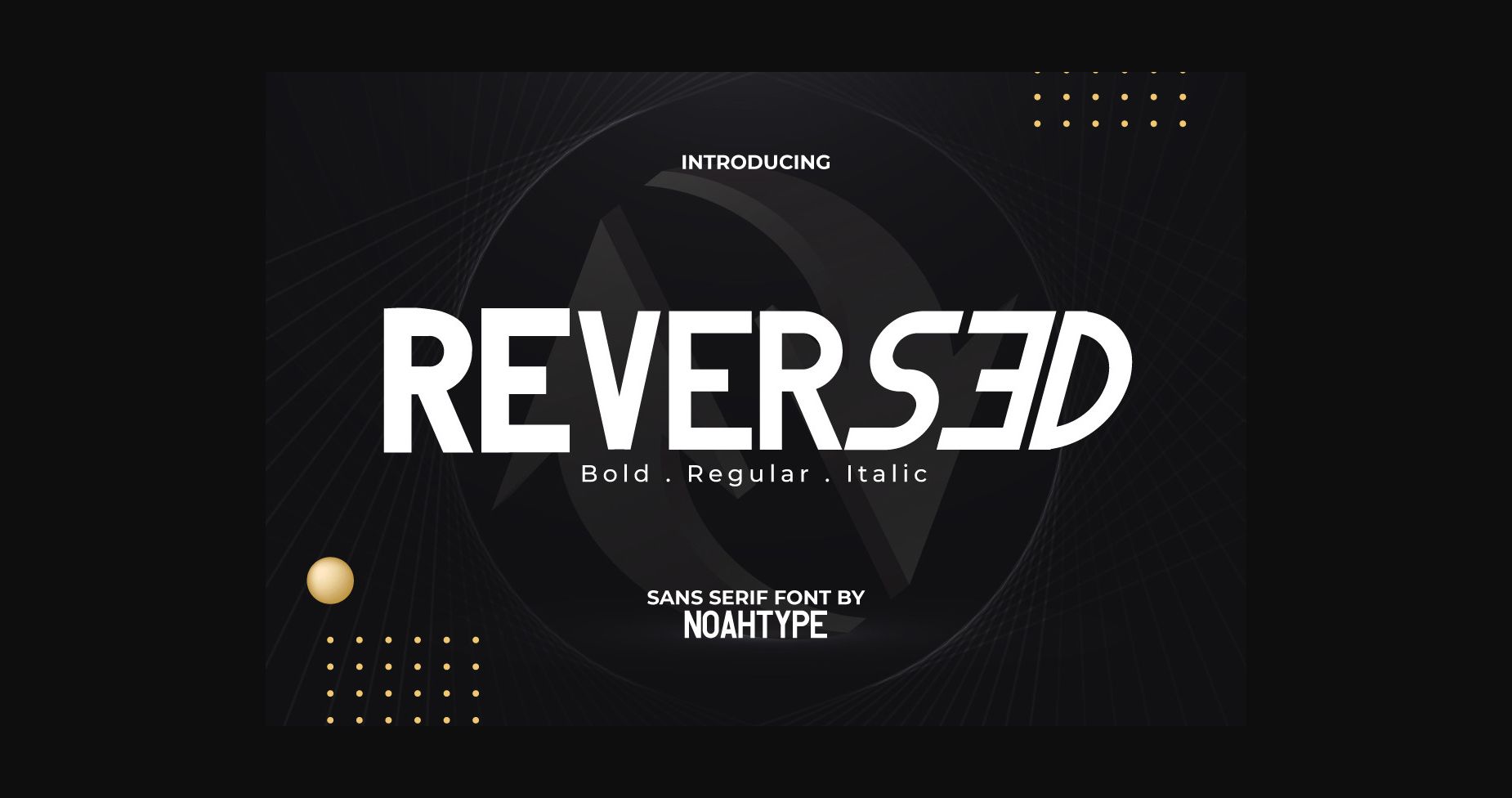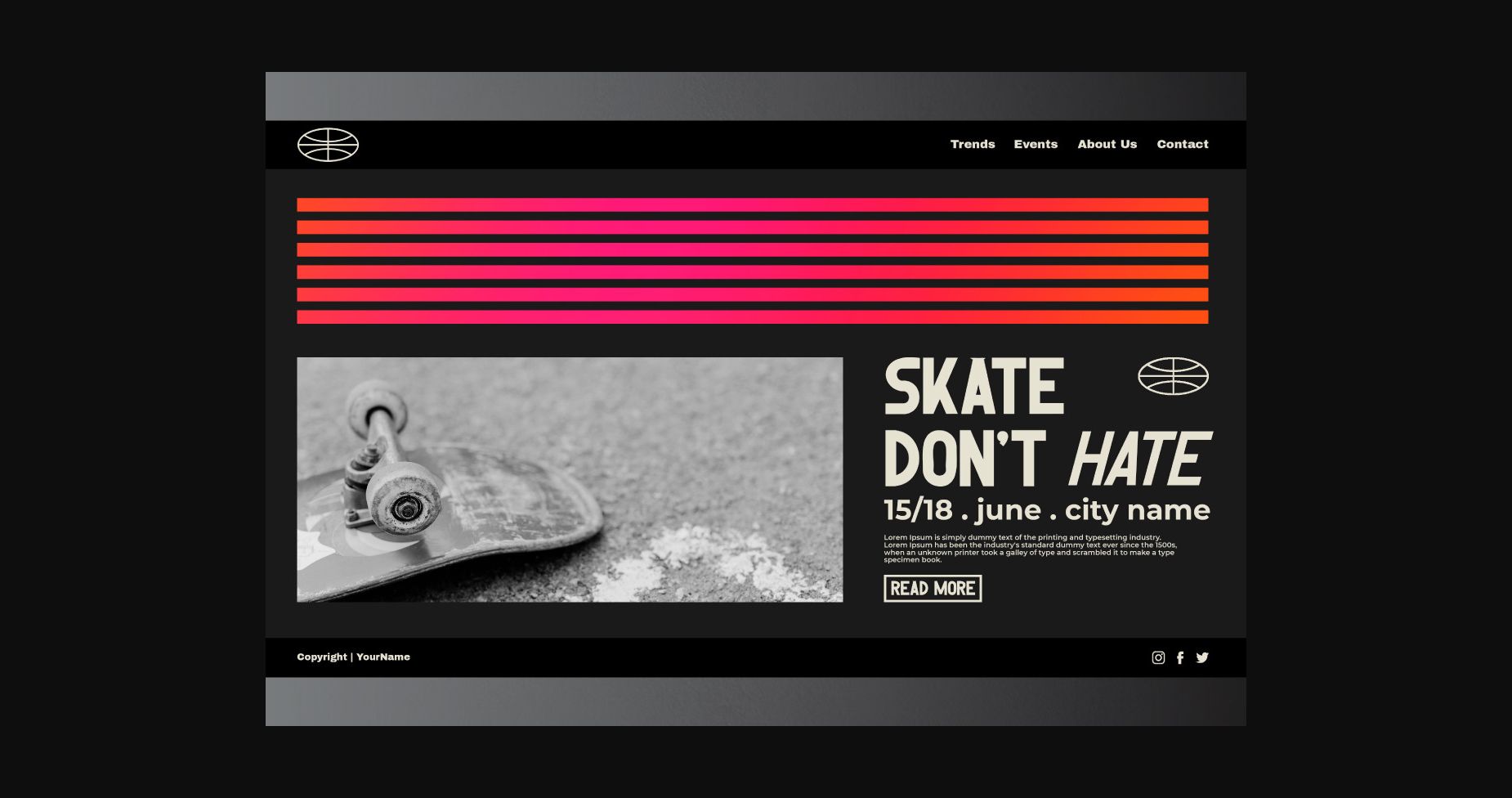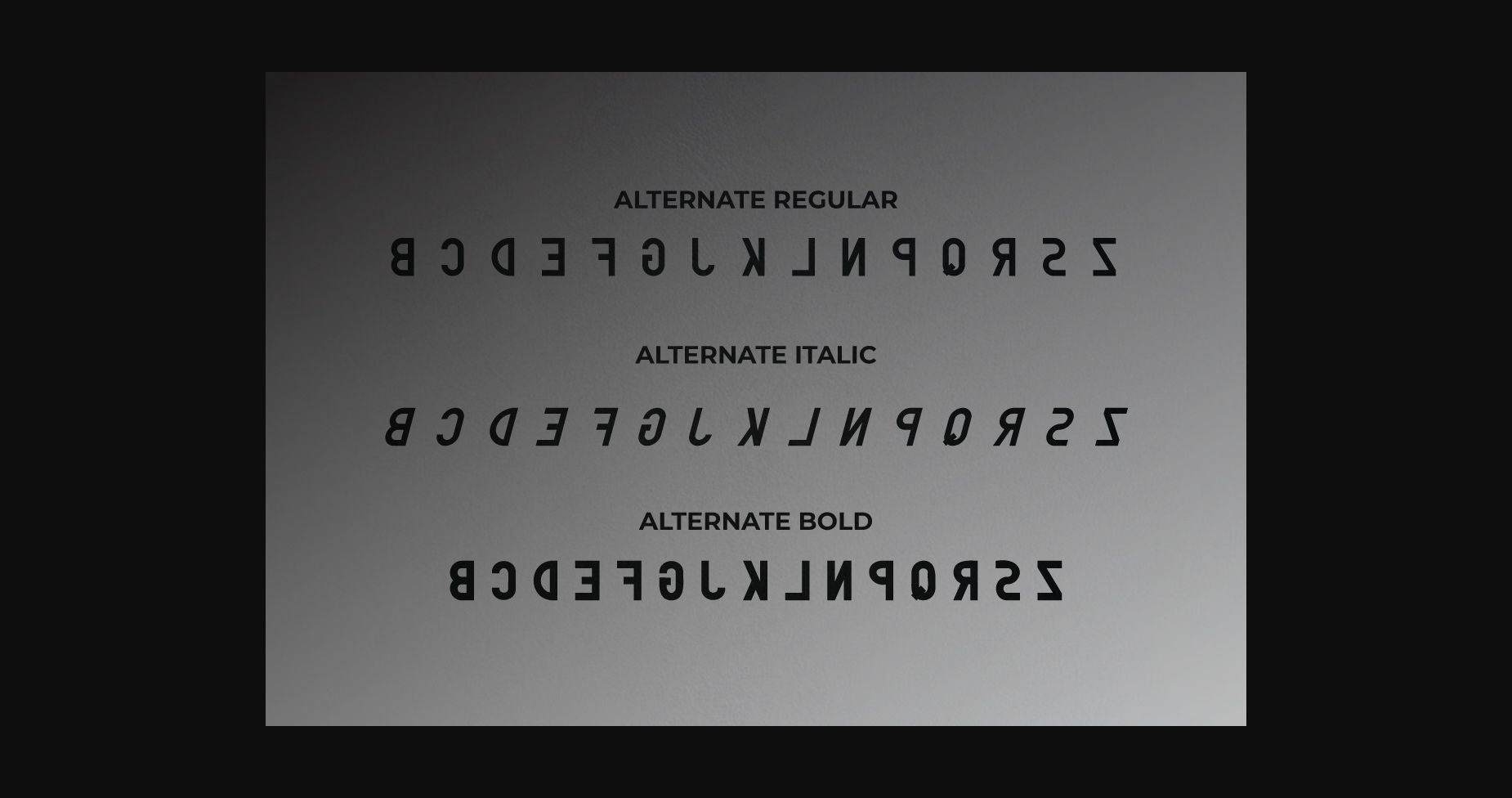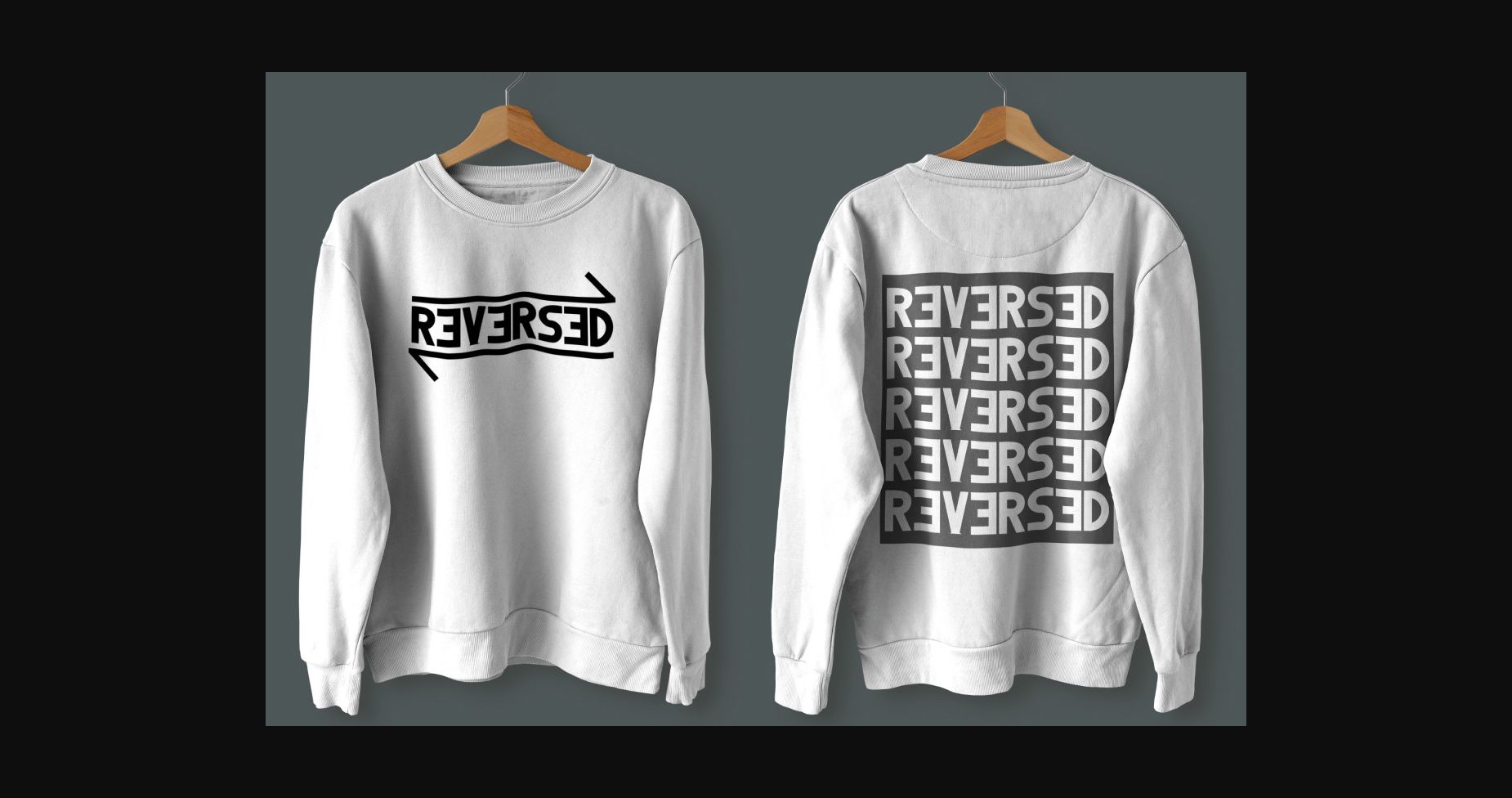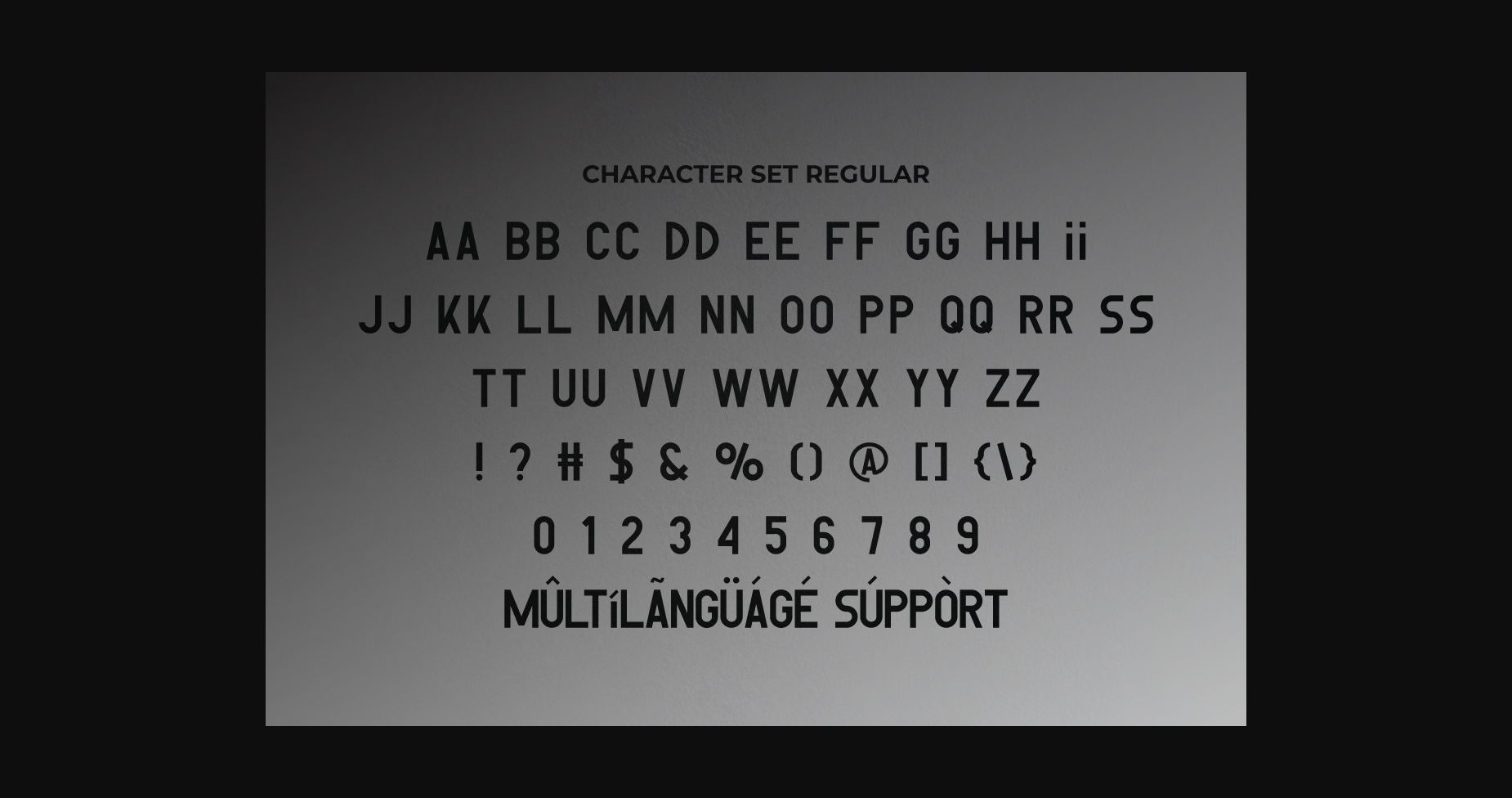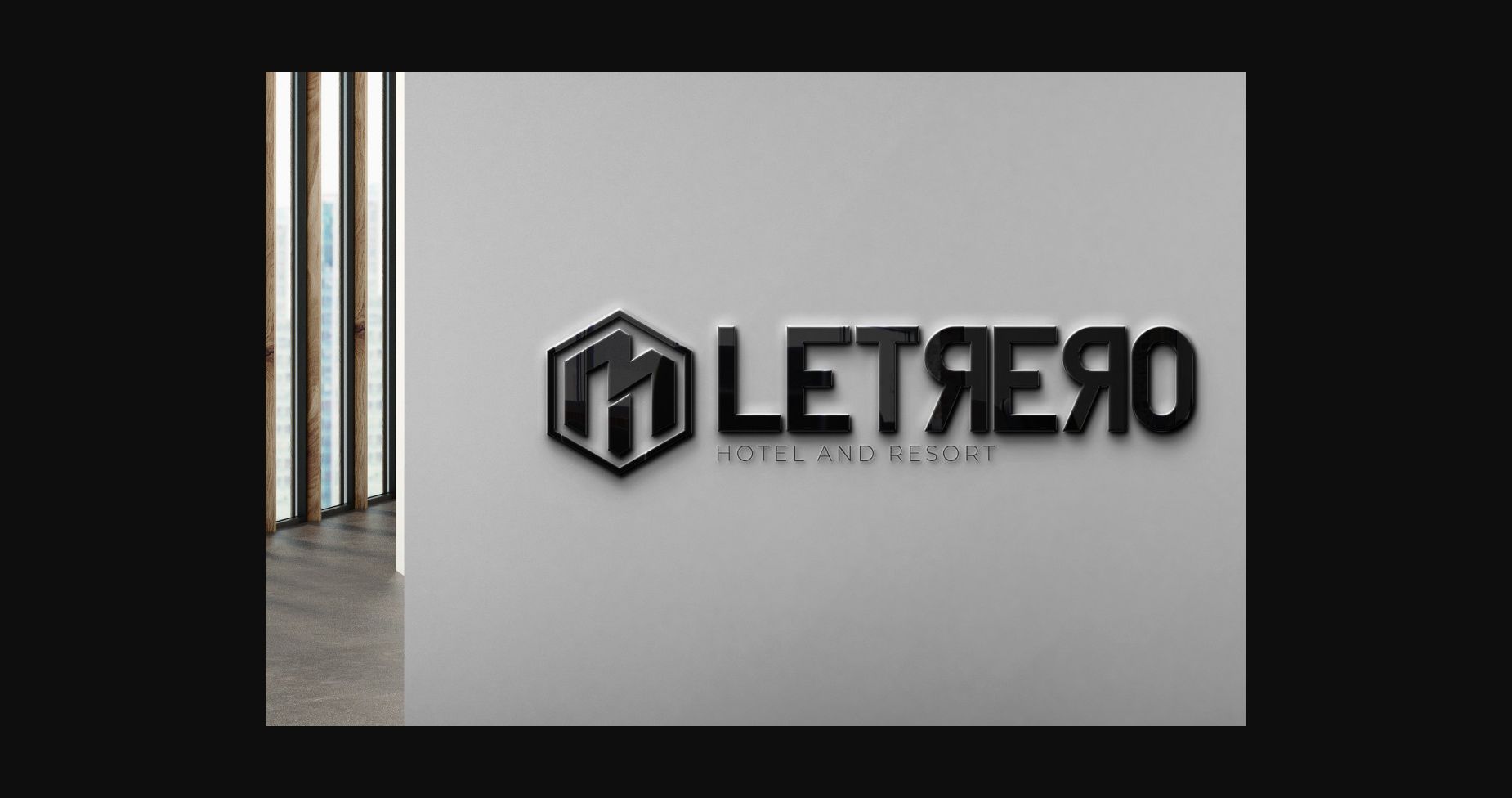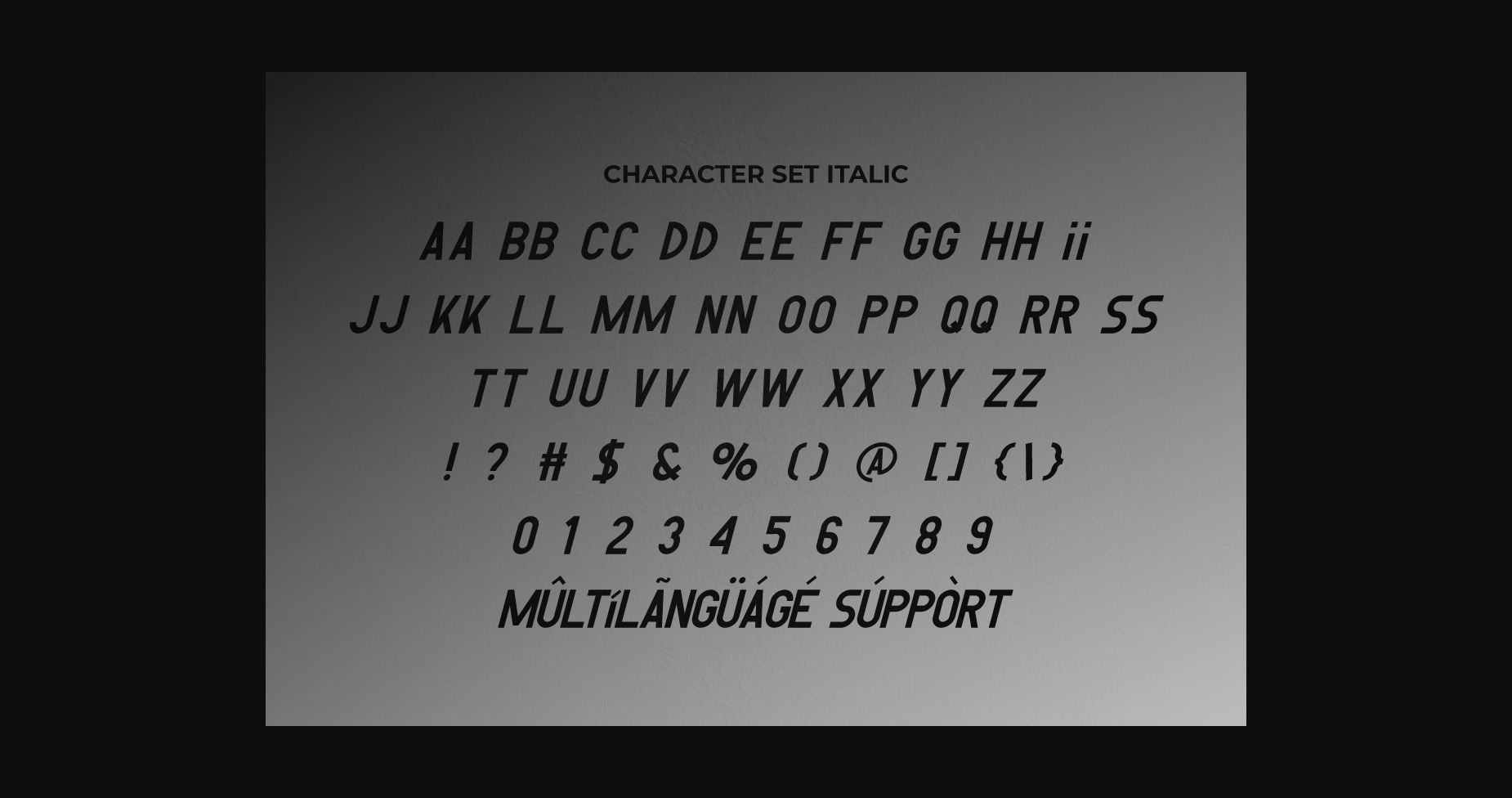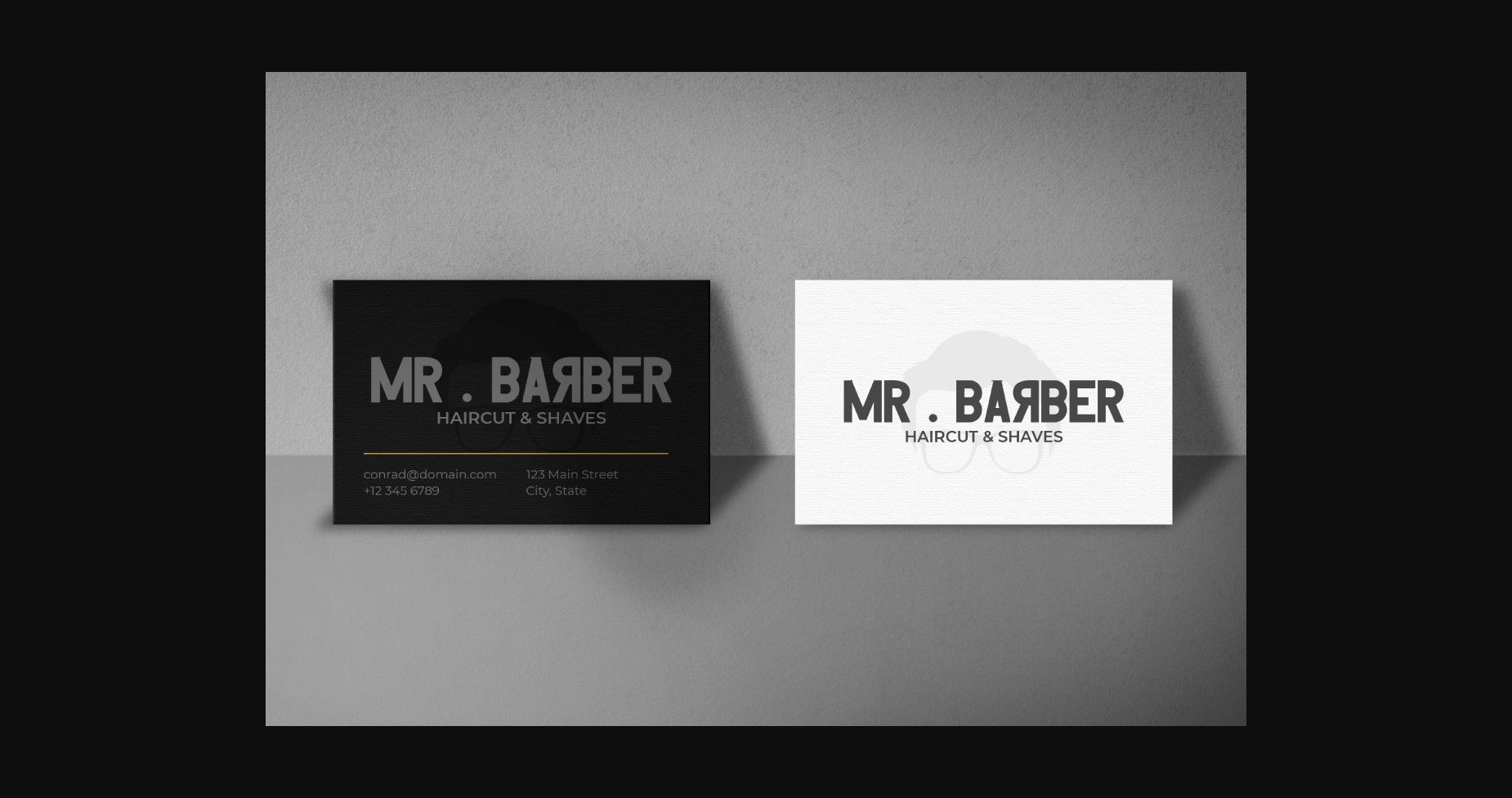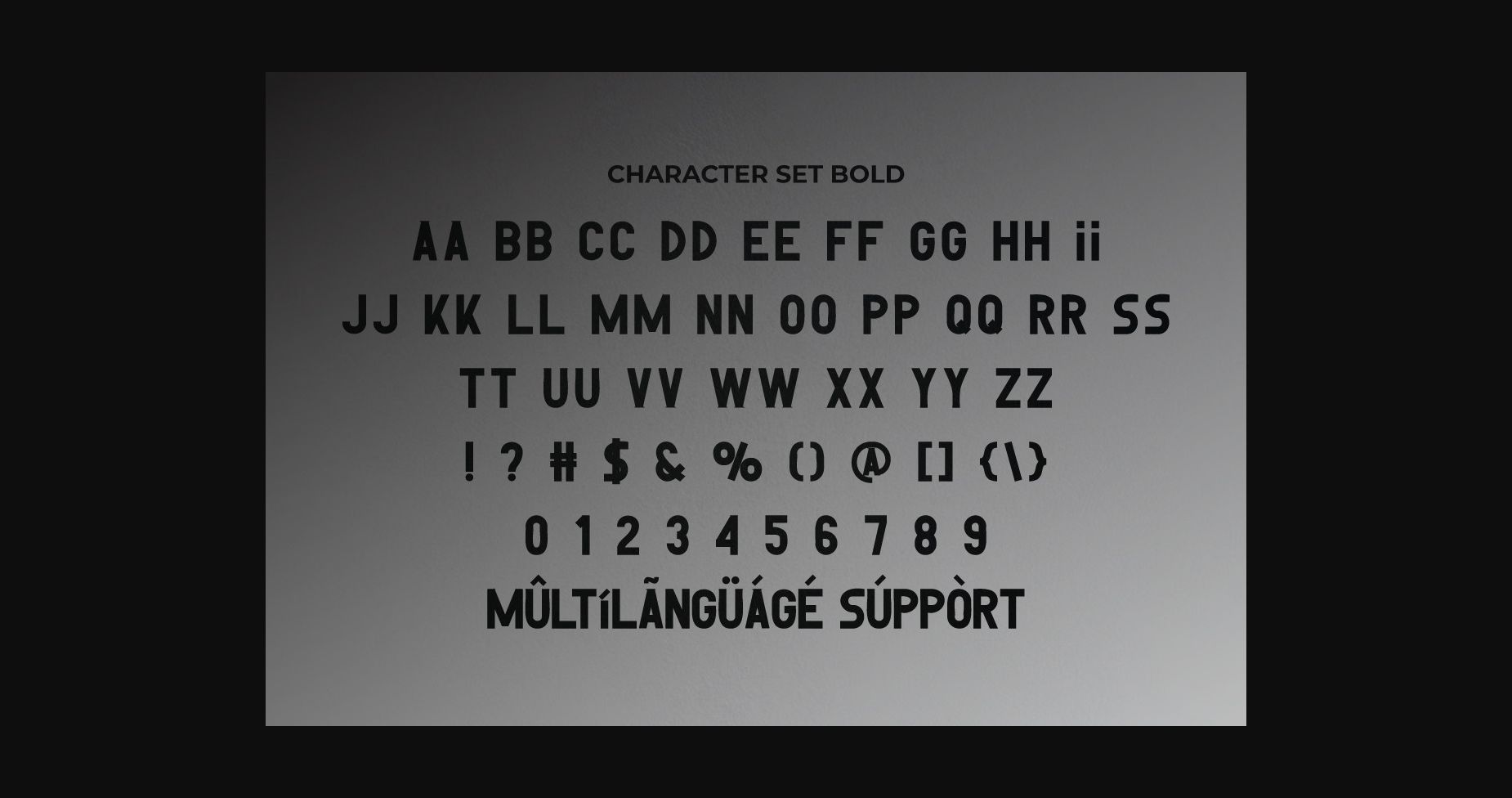
HomeSans Serif FontsReversed Font Sans Serif Fonts Reversed Font FacebookXPinterestWhatsApp 1 of 11 ... Reversed Font Poster 2... Reversed Font Poster 3... Reversed Font Poster 4... Reversed Font Poster 5... Reversed Font Poster 6... Reversed Font Poster 7... Reversed Font Poster 8... Reversed Font Poster 9... Reversed Font Poster 10... Reversed Font Poster 11... About Reversed Font Reversed is a cool, bold and modern sans serif font. It is perfect for product packaging, branding project, magazine covers, social media, wedding, or just used to express words above the background. DOWNLOAD NOW People also explored Southside Font Rungen Font Mylestock Font Difasta Font Saturday Farmhouse Font Fabulusly Font Westbrook Font Stay Woke Font Tangerine Font 499 0 TagsReversed Font Previous articleSchlove FontNext articleLogutown Font LEAVE A REPLY Cancel reply Comment: Please enter your comment! Name:* Please enter your name here Email:* You have entered an incorrect email address! Please enter your email address here Website: Save my name, email, and website in this browser for the next time I comment. Personal Use Free Strings Personal Use Free Read more about this font Old Linoleum Personal Use Free Read more about this font Just Smile Personal Use Free Read more about this font Vembazax Rm Personal Use Free Read more about this font BLOG 5 Fonts That Will Dominate Design Trends in 2026 5 Fonts for 2026 That Will Dominate Design Trends Typography plays a critical role in visual communication, and as we look ahead to 2026, it’s... Elegant Wedding Invitation Fonts – Handwritten & Script Fonts Top 10 Handwritten Fonts That Elevate Your Designs Best Fonts for YouTube Videos: Make Your Thumbnails Stand Out